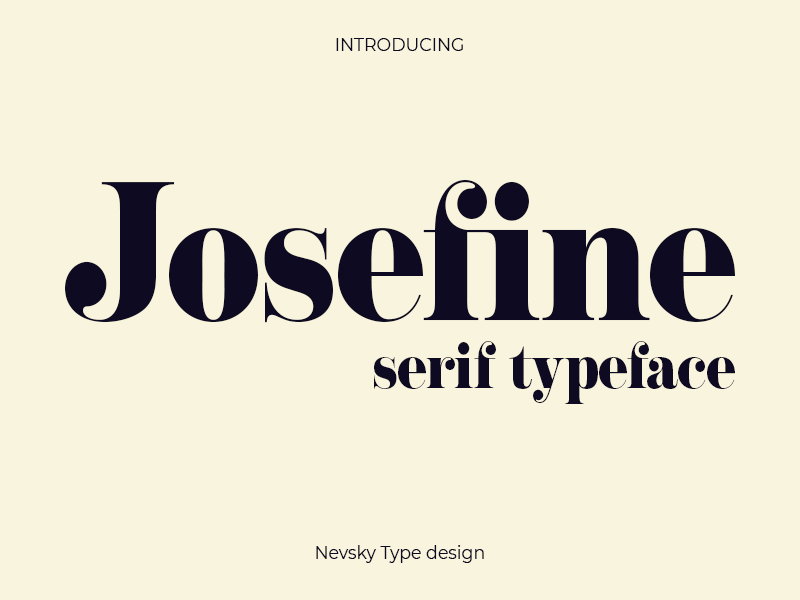
Preview and download NT Josefine Font. Created by Artem Nevsky in Basic Serif styles with Free for personal use license.
�NT Josefine� is a new serif typeface will perfect for many project: invitations, postcard, poster, book, advertisements, websites, blog header, logo, branding, magazines, fashion, photography, etc. This font free for PERSONAL USE. Commercial license: https://crella.net/product/nt-josefine/ https://pixelsurplus.com/collections/free-fonts/products/josefine-elegant-serif-font If you need more detailed information you can contact me at: nevsky.type@gmail.com -------- Behance: https://www.behance.net/artemnevsky |